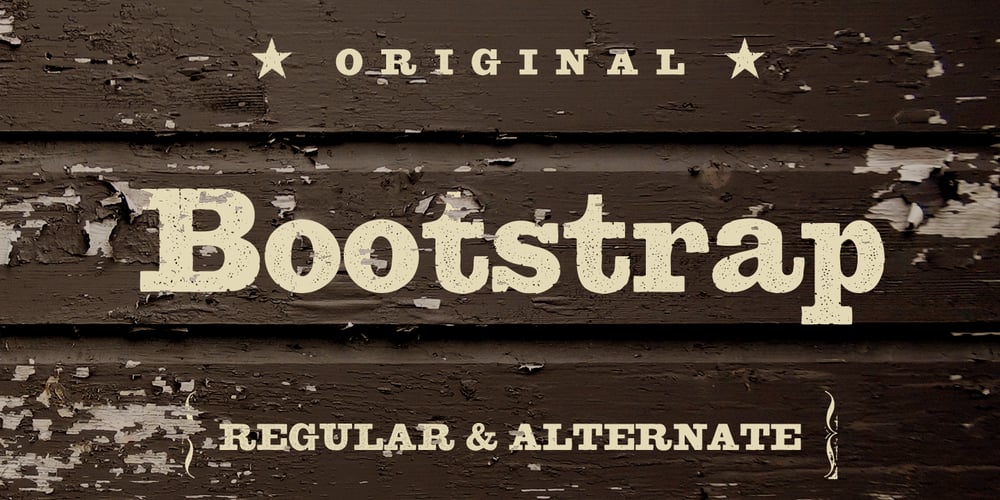
Bootstrap Font Family was designed by Stephen Miggas and published by Aerotype. Bootstrap contains 2 styles and family package options. Bootstrap and less-distressed companion Bootstrap Alternate use the OpenType ligature feature to substitute a unique pair of distressed characters when any upper or lower case letter is keyed twice in a row. Both fonts also support Eastern European Latin and Baltic languages.